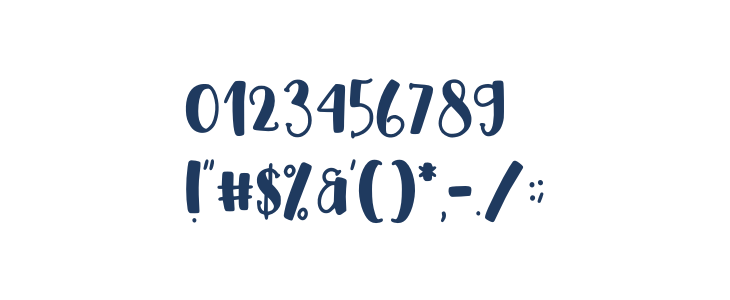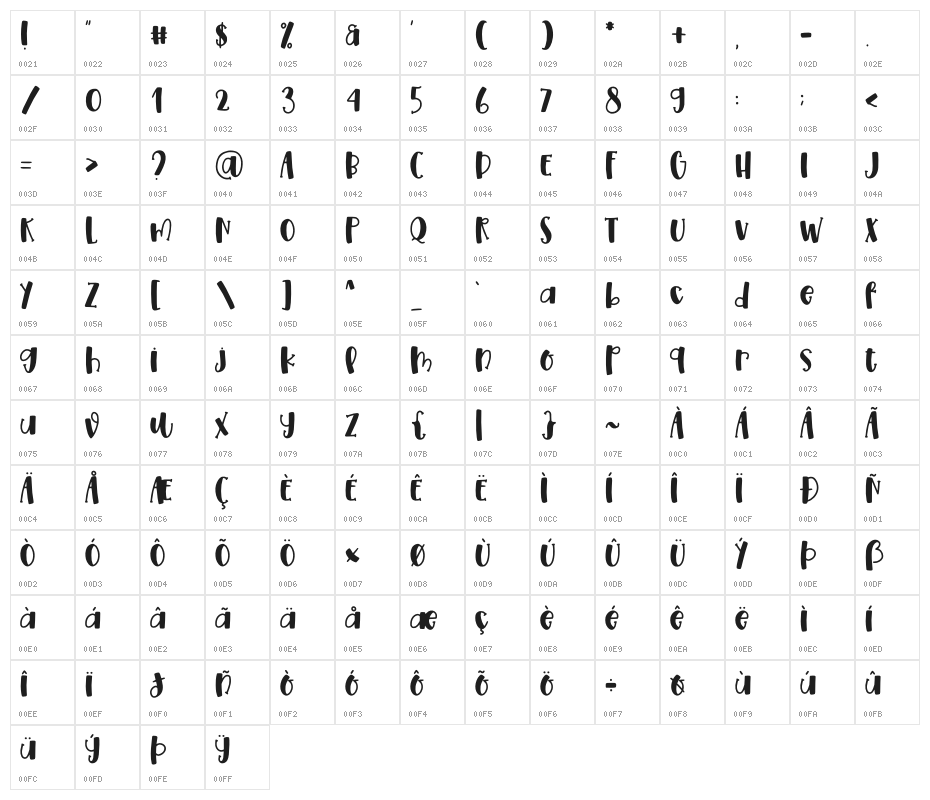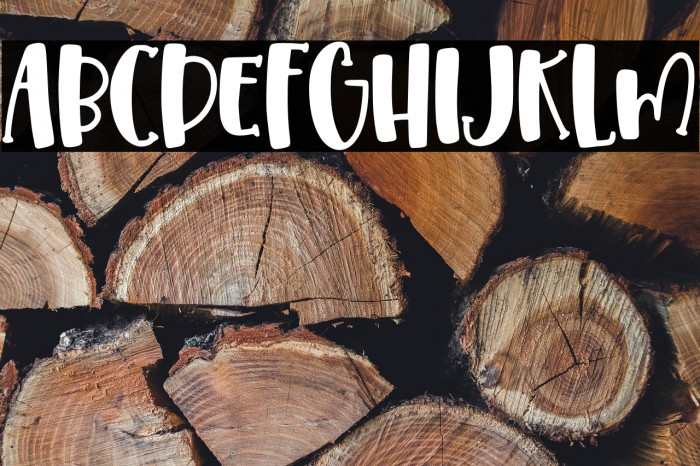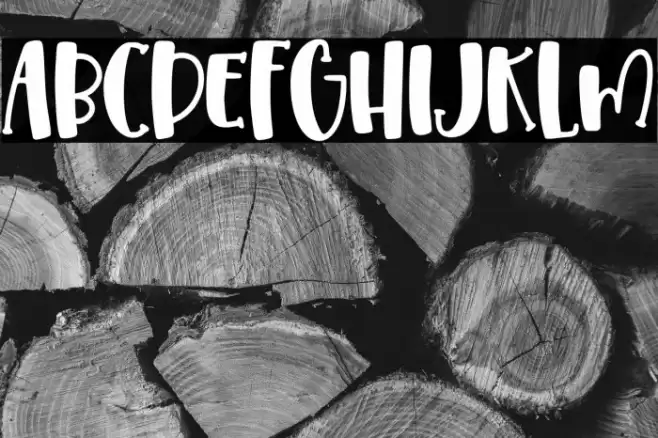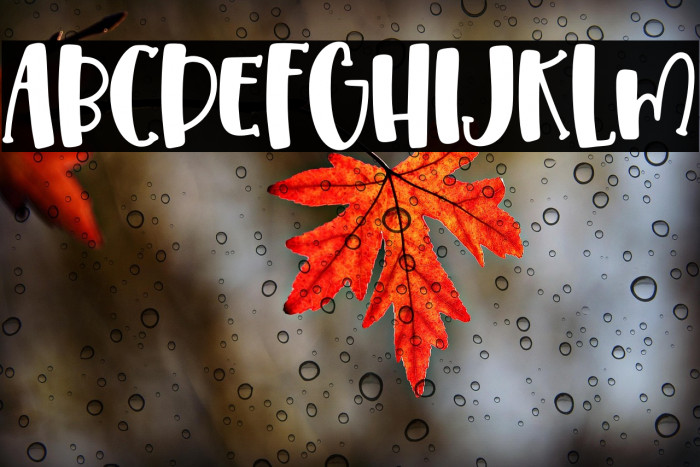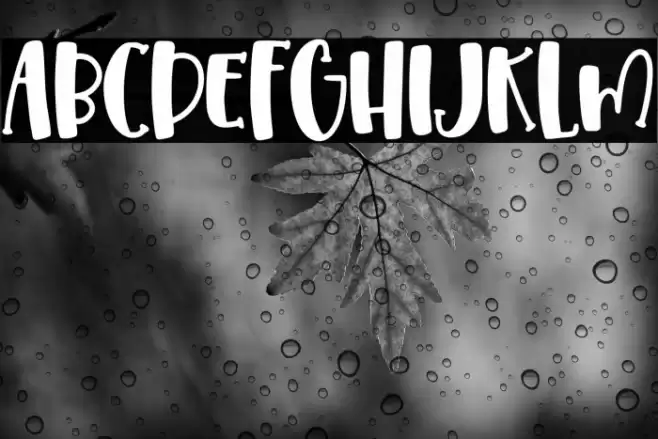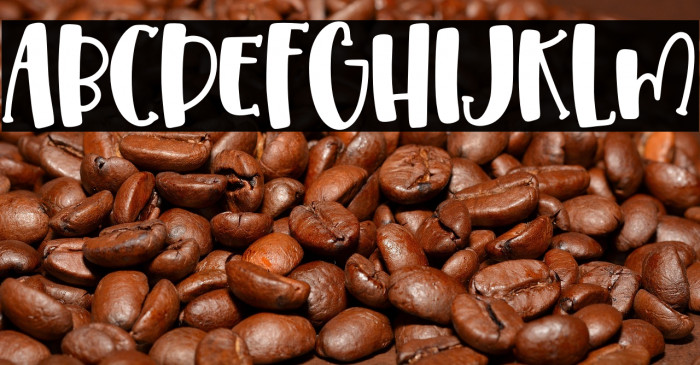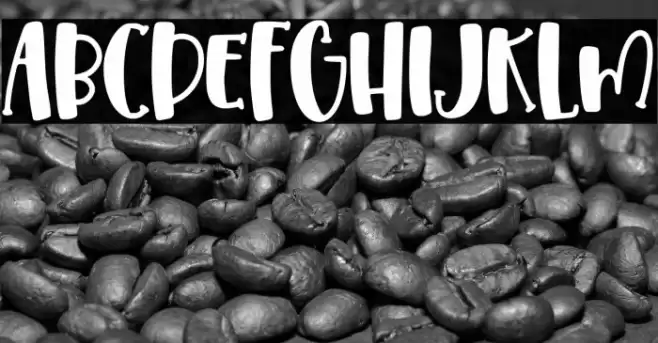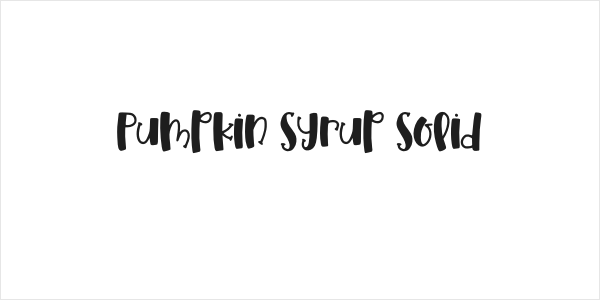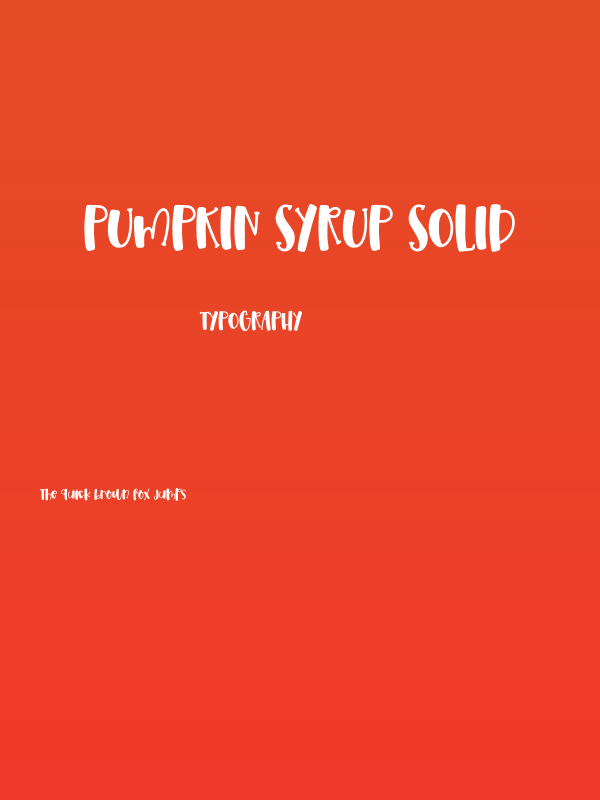
Pumpkin Syrup Solid Font
Pumpkin Syrup Solid Description
This playful and bold font features a whimsical, hand-drawn style with thick, rounded strokes. The characters have a lively and energetic appearance, with some letters incorporating unique loops and curls that add to its charm. The uppercase and lowercase letters maintain a consistent style, while the numbers and special characters complement the overall design. This font exudes a sense of fun and creativity, making it ideal for projects that require a touch of personality and flair.